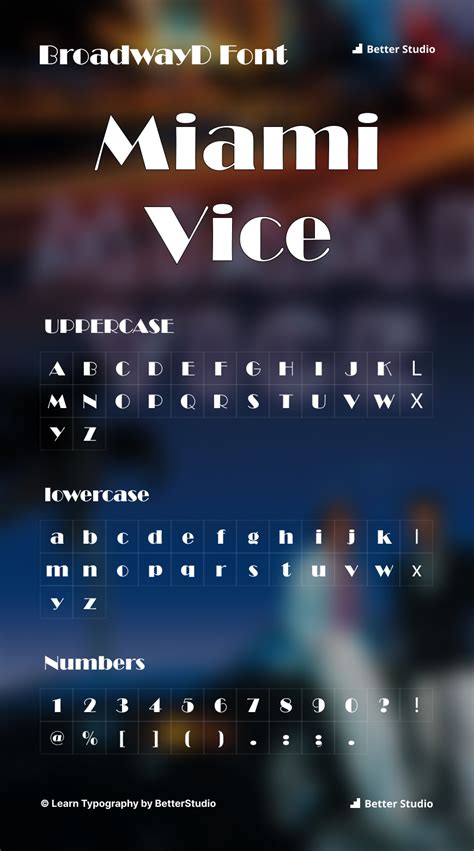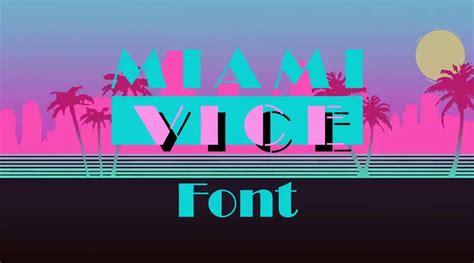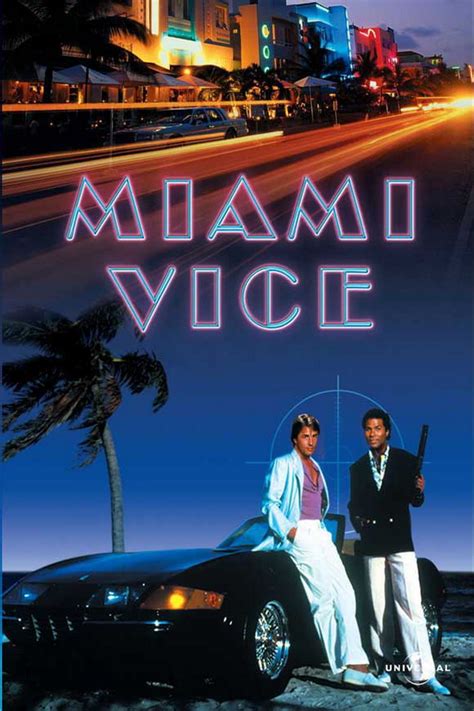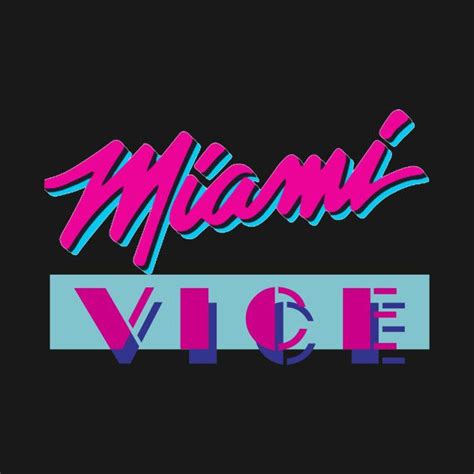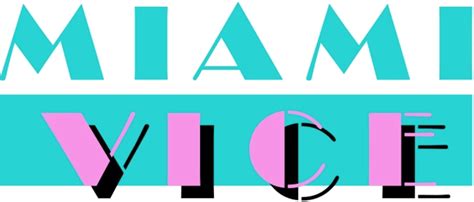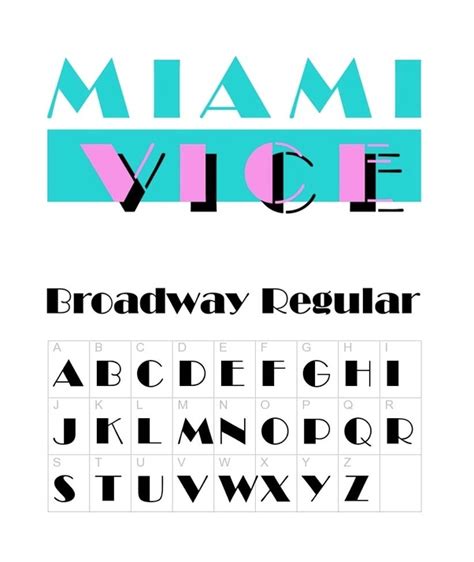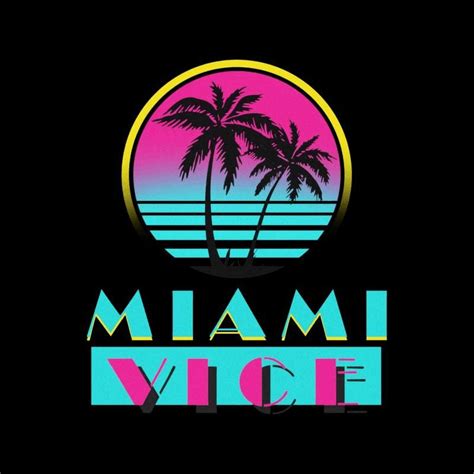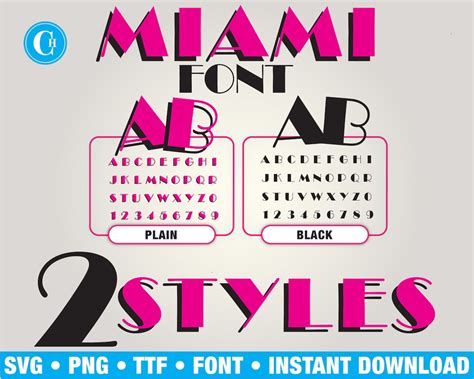
MIAMI VICE FONT
The miami vice font is a distinctive and eye-catching font that has become a popular choice for various design projects. This font is inspired by the vibrant and energetic atmosphere of Miami, Florida, and captures the essence of the city's iconic style. With its unique characteristics, it offers a modern and playful twist to any text or design, making it a favorite among graphic designers and content creators.
One of the key features of the miami vice font is its bold and exaggerated letterforms. The font designers have crafted each character with a strong emphasis on visual impact, creating a sense of movement and dynamism. This makes it ideal for headlines, logos, and short text snippets where you want to grab attention and convey a sense of excitement.
Another notable aspect is its versatility. While it has a distinct style, it can be used in a wide range of contexts, from casual social media posts to more formal design projects. Its ability to adapt to different environments and design aesthetics is a significant advantage, allowing designers to create cohesive and visually appealing compositions.
Furthermore, the miami vice font offers a unique benefit in terms of brand identity and recognition. Its distinctive style can help businesses and individuals establish a strong visual presence and leave a lasting impression on their audience. Whether used in marketing materials, websites, or product packaging, this font can contribute to building a memorable brand image.